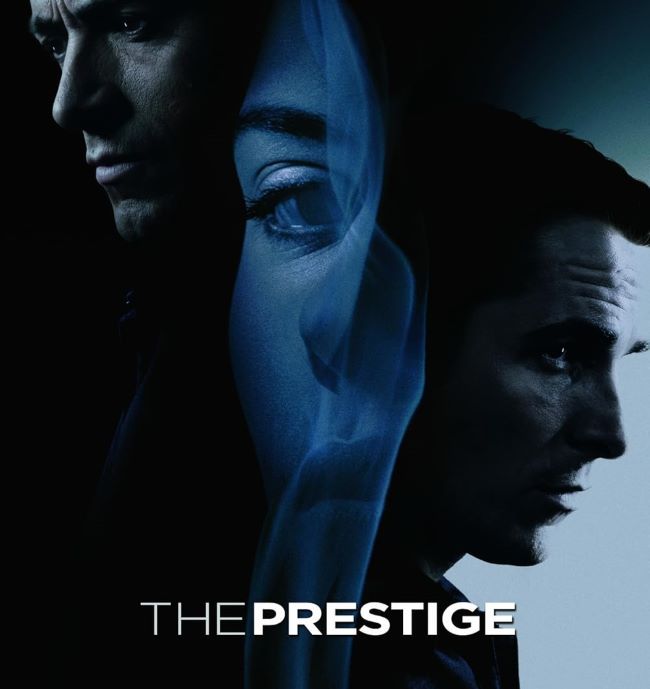
The Prestige Font weaves visual enchantment through carefully constructed letterforms that mirror the film’s layers of deception and theatrical grandeur. This typography embodies the essence of Victorian-era showmanship, offering designers a powerful instrument for creating enigmatic, captivating visuals that demand closer inspection.
Designers often use the Prestige font (or its alternatives) when they want to convey sophistication, mystery, or a classic movie poster vibe. It works beautifully in book covers, event posters, and branding projects where a touch of drama is needed. Much like the movie’s twists and turns, the typography holds attention without revealing too much at once.
The Prestige Font
The Prestige Font excels in magic show branding, luxury product packaging, mystery novel covers, and upscale event invitations. Its dignified structure commands respect while maintaining an air of secrecy, proving typography can perform illusions as effectively as any stage magician.